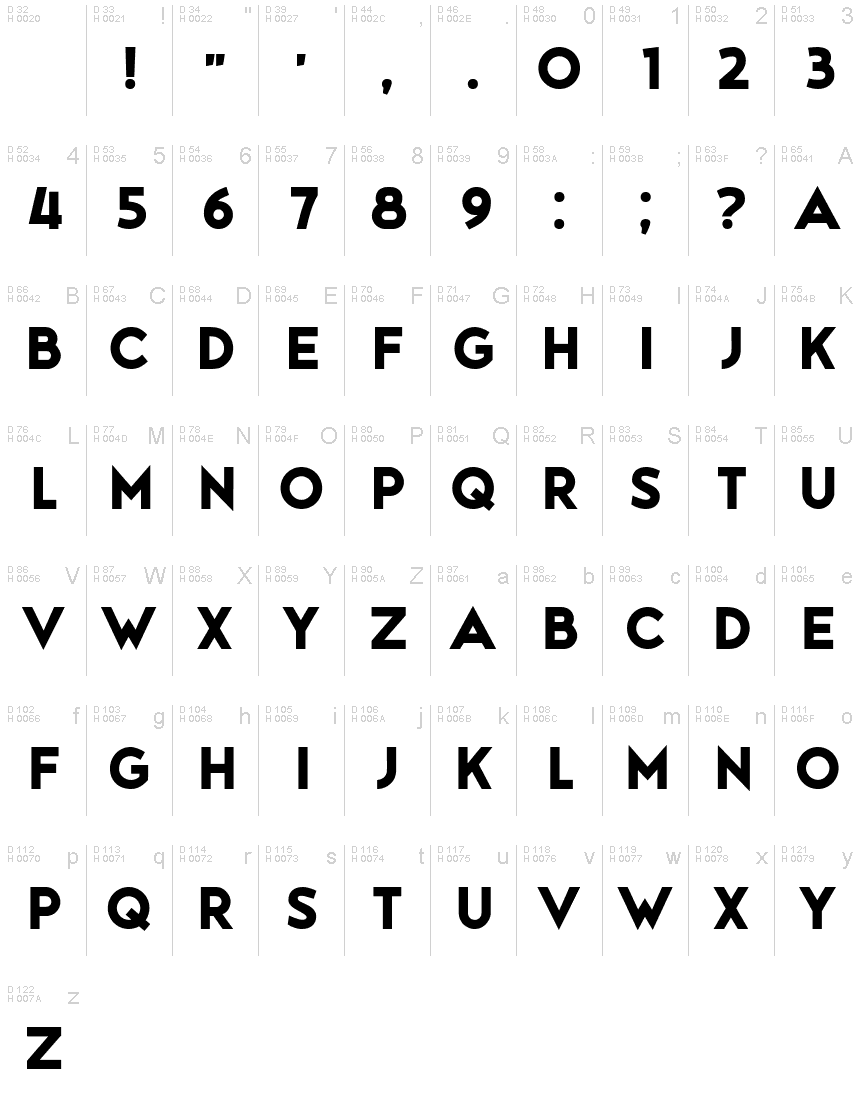
Linzer Augen Regular
Linzer Augen, designed by Vladimir Nikolic, is a bold sans serif font with a semi-expanded width.
Its strong and modern appearance makes it perfect for eye-catching headlines and attention-grabbing titles. The versatility of Linzer Augen allows it to be used in various creative projects such as posters, magazine layouts, and branding materials. With its unique character shapes and generous spacing, this font adds a touch of sophistication to any design. Whether you're working on a fashion campaign or a tech startup's website, Linzer Augen will make your project stand out from the crowd.